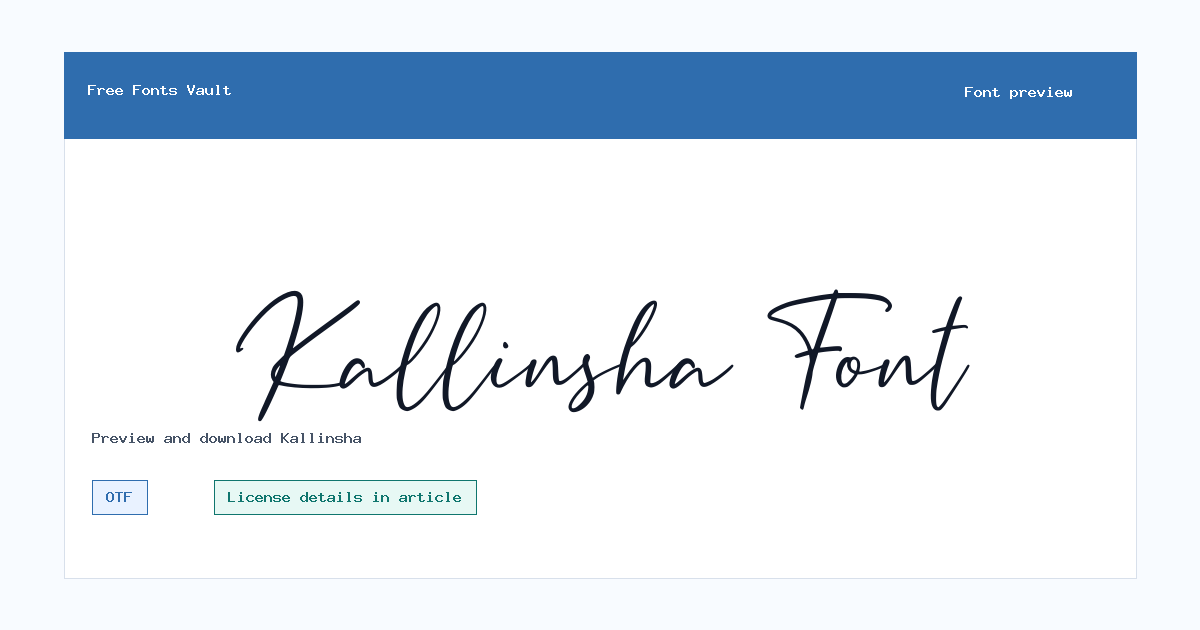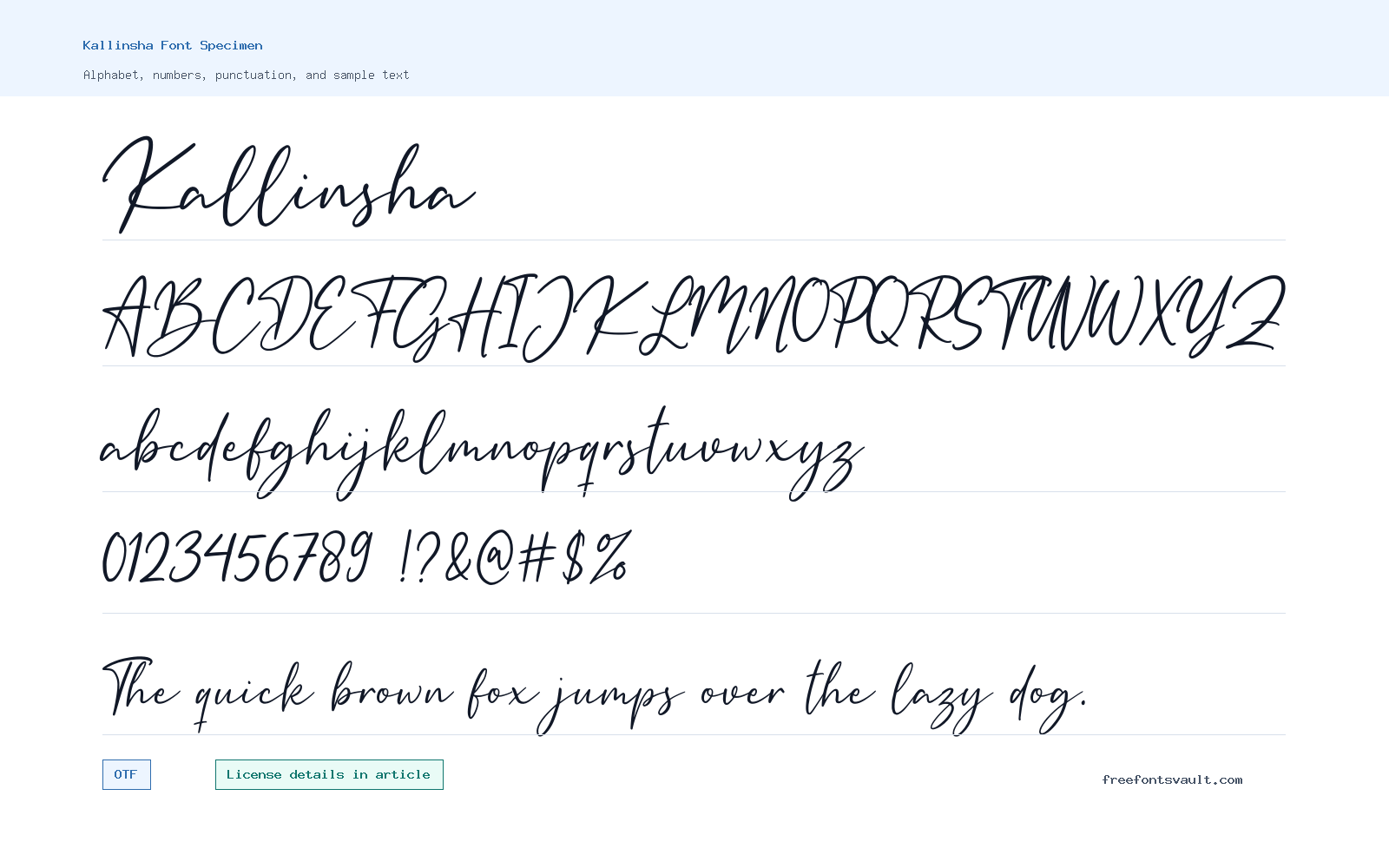
Kallinsha
- Designer , Fajar Abdul Fatah from Sibelumpagi Studio.
Kallinsha is a handwritten script font with a soft signature feel, made for short decorative text rather than long paragraphs. Its flowing letter shapes work well when you want a warm, personal look for invitations, quotes, stationery, or social graphics.
About Kallinsha Font
Kallinsha has the look of casual calligraphy: connected strokes, a light touch, and a feminine handwritten style. Sources list it in handwritten or script categories, and the font file is an OpenType OTF. The style is best used at display sizes where the curves and swashes have room to show.
Use Kallinsha for wedding invitation headings, greeting cards, short quotes, feminine branding concepts, social media posts, packaging mockups, labels, and stationery layouts. Keep body text in a simpler serif or sans serif so the script stays readable. When testing the preview, try names, two-word phrases, initials, and punctuation, because script fonts can change feel quickly depending on the letter mix.
- Handwritten script look suited to short decorative text
- Sources mention ligatures and ending swash alternates
- Wedding invitations and event stationery
- Greeting cards and quote graphics
- Feminine branding concepts and logo drafts
- Social media posts and Pinterest-style graphics
- Packaging mockups, labels, and product presentation images
Kallinsha is credited to Fajar Abdul Fatah from Sibelumpagi Studio. Other font sites also list Sibelumpagi as the designer or studio connected with the font.
What style of font is Kallinsha?
Kallinsha is a handwritten script font with a signature-style feel. It is better for display text than for long reading sections.
Try names, short quotes, brand words, invitation headings, and accented characters you need. Script fonts can look different depending on the letters used.